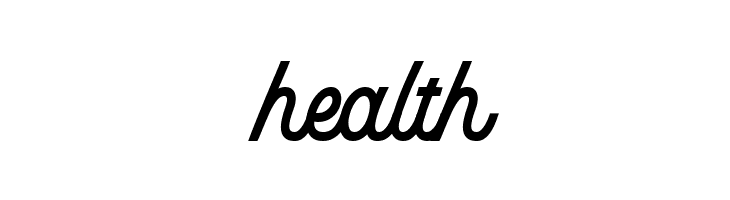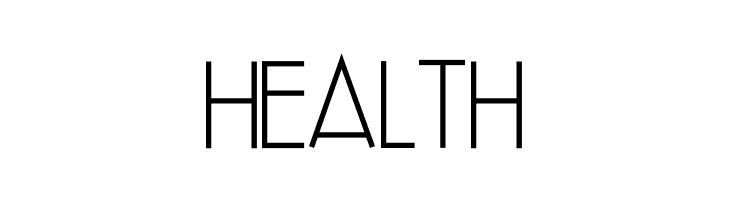
A bold, monoline script font with smooth curves and consistent stroke width.
A flowing, cursive font with a natural handwriting style, perfect for elegant and personal designs.
A modern, geometric font with circular accents and a minimalist aesthetic.
A sleek, modern, and light italic font with smooth curves and ample spacing.
A modern geometric font with a blend of bold and thin lines, offering precision and clarity.
A modern font with a blend of geometric and organic elements, offering a dynamic and cohesive style.
A sleek, modern font with thin, elegant strokes and a minimalist design.
A bold, condensed font with strong vertical emphasis and minimal spacing.
A modern, italic font with tall, narrow characters and a sleek, contemporary style.
A thin, backslant font with a sleek, modern design and minimalist style.